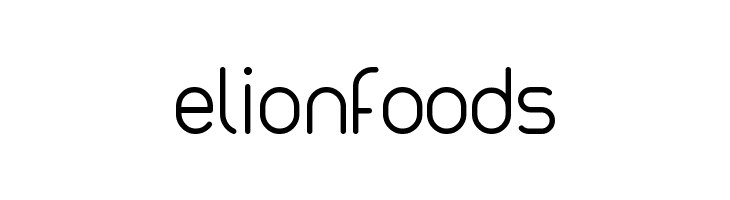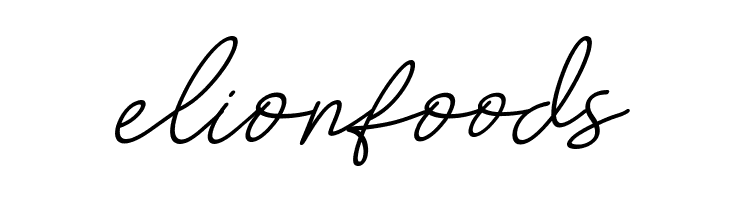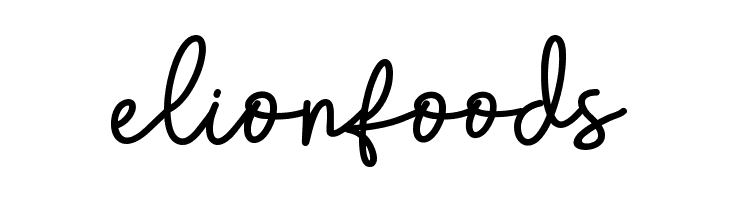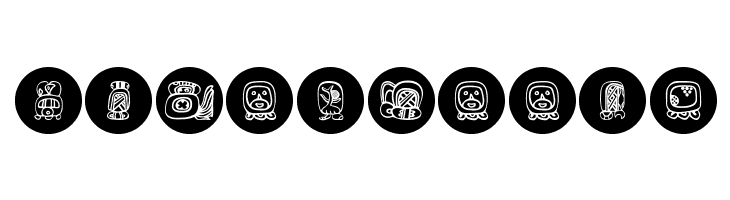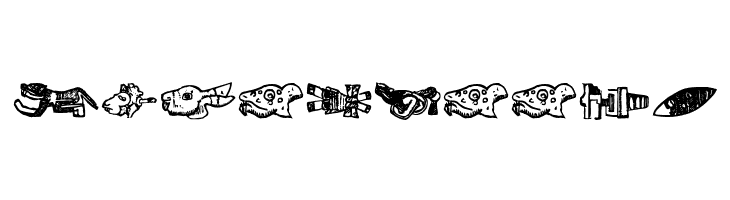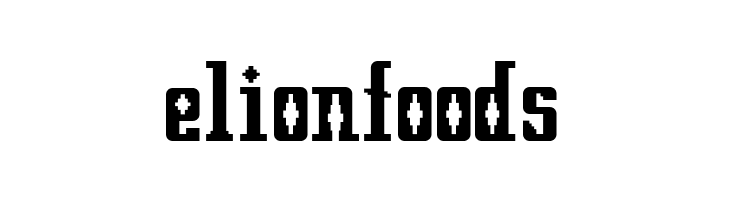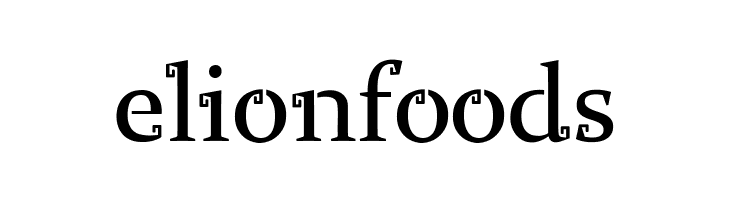
A modern, rounded sans-serif font with a clean and approachable design.
A playful, hand-drawn font with a whimsical and dynamic style.
A playful and elegant handwritten font with smooth, flowing lines.
A bold, playful handwritten font with a dynamic and lively style.
An elegant, flowing script font with smooth, connected strokes and a graceful slant.
A decorative script font with elegant swirls and loops.
Decorative font mimicking Mayan glyphs within black discs.
A decorative serif font with intricate, angular embellishments and a bold, sophisticated style.
A bold, decorative font with geometric and tribal influences, featuring intricate cut-out patterns.
Intricate symbols inspired by ancient Mayan and Mexican iconography.